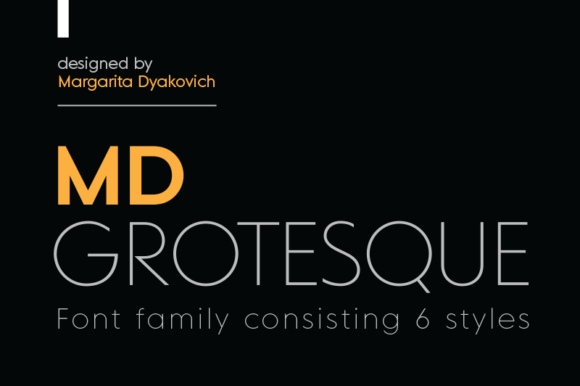
MD Grotesque Font
MD Grotesque Font is perfect for modern branding projects, contemporary web design, minimalist logos, editorial layouts, packaging design, and sophisticated marketing materials. Its clean geometric structure makes it ideal for tech companies, fashion brands, architectural firms, and any project requiring a sleek, professional appearance.
This font is exciting because it combines timeless geometric principles with modern refinement, offering exceptional readability across all sizes while maintaining a distinctive personality. The carefully crafted letterforms feature subtle details that enhance both digital and print applications, making it a versatile choice for designers seeking something beyond ordinary sans-serif options.
The MD Grotesque Font family typically includes multiple weights ranging from Thin to Black, with corresponding italic variations. This comprehensive family structure provides designers with extensive typographic flexibility, allowing for sophisticated hierarchical systems and dynamic visual compositions across various design applications.
Whether you're working on corporate identity systems, magazine layouts, or digital interfaces, MD Grotesque Font Free Download delivers the professional quality and aesthetic appeal that modern design projects demand. Its balanced proportions and excellent spacing make it particularly effective for both headline treatments and extended text setting, ensuring consistent performance across diverse creative applications while maintaining visual impact and readability standards.